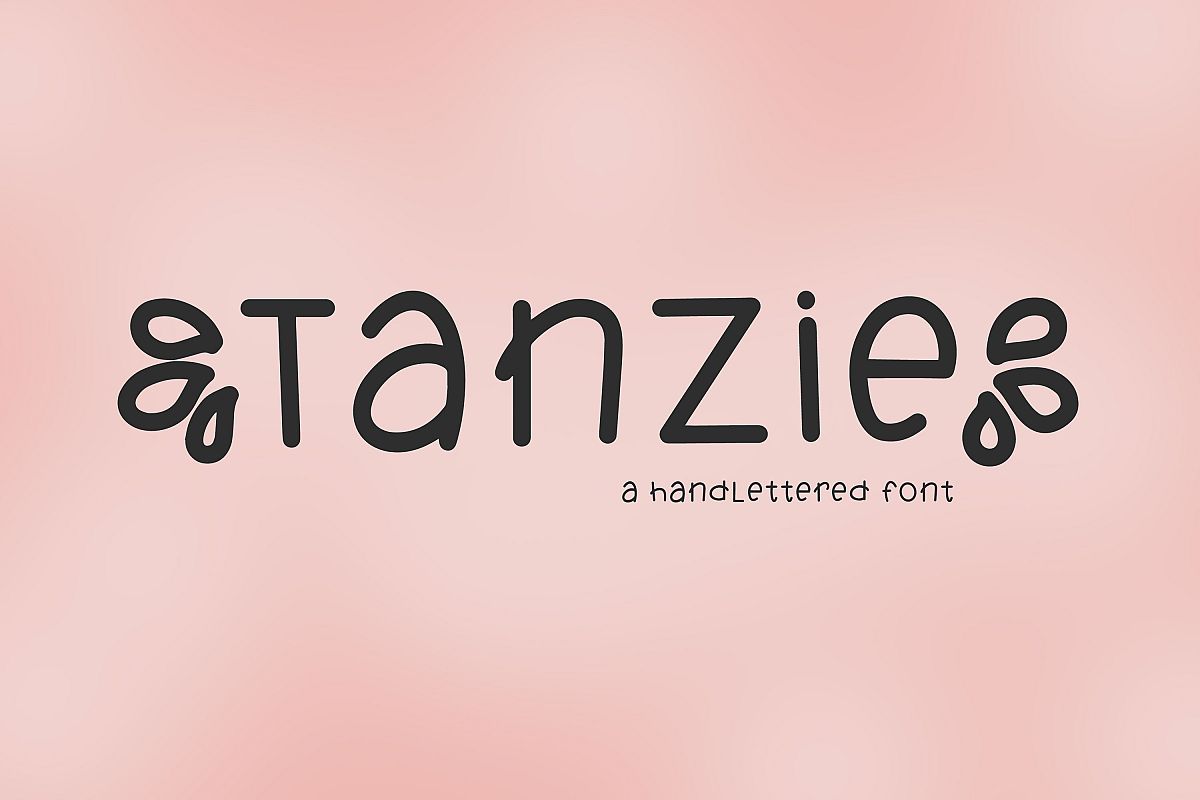
Tanzie
Tanzie is a fun light-hearted font with lots of personality! This hand-lettered font and included hand-drawn symbols font is a one of a kind, cute and spunky font! You will love the chunky letters, and the coordinating symbols to add variety to all your projects!